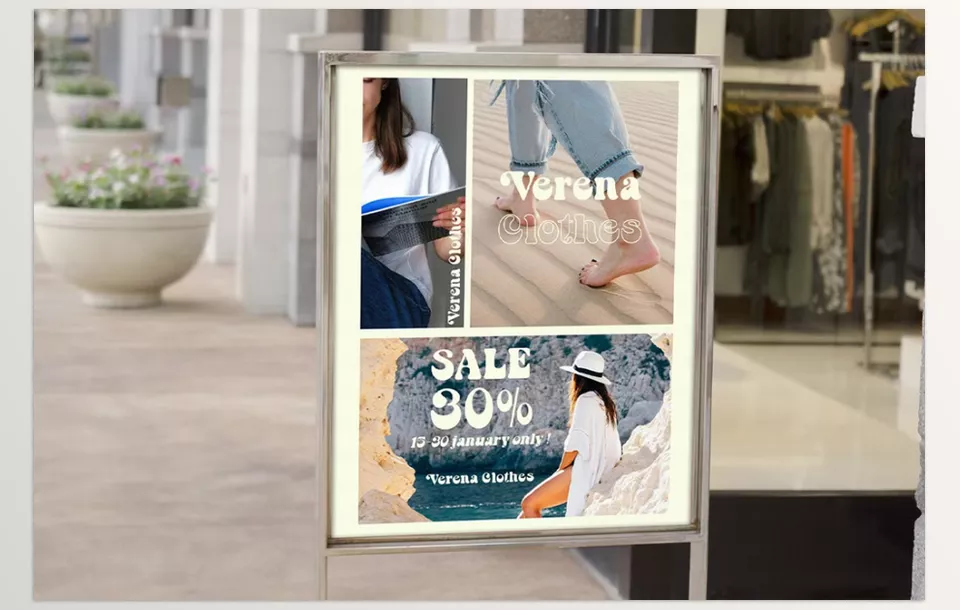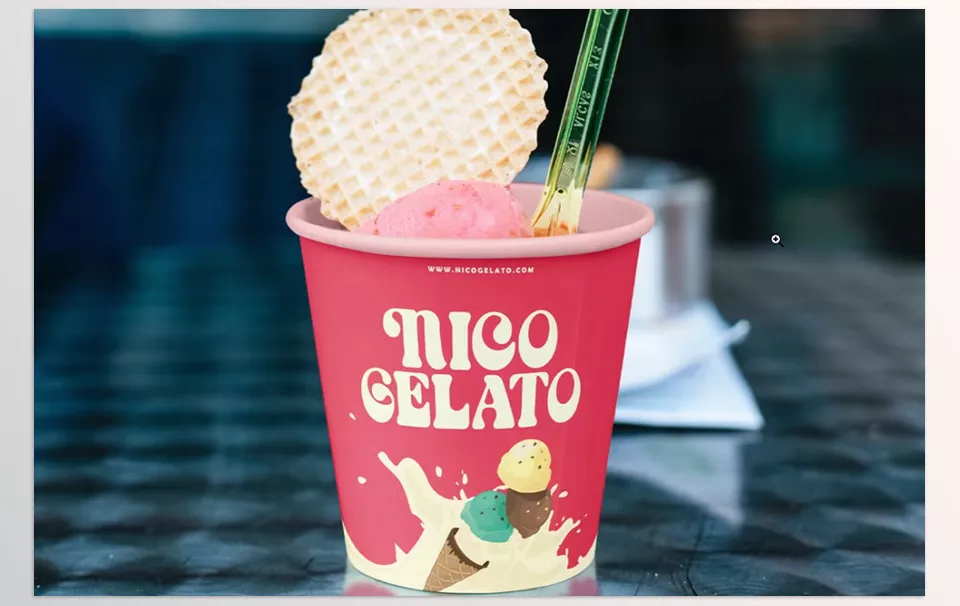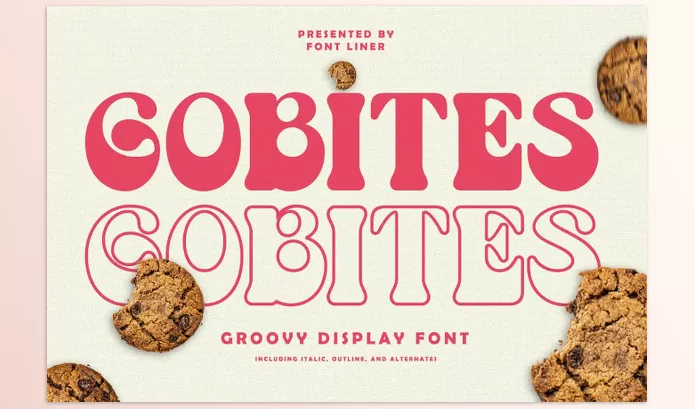
Gobites Groovy Retro Font adds a touch of nostalgia to creative projects thanks to its retro-inspired look. This design font will accentuate your creative projects with a unique touch. It is perfect for logos, packaging, apparel marketing, and myriad other graphic design projects and will add a retro flair to your designs.
Font Liner – Gobites Groovy Retro Font Features
• Outline Version: All purposes have an outline option.
• Italic Style: Supporting italic versions of semi-dynamic designs.
• Creative Use: Stylistic Alternatives help to enhance creativity by providing alter characters.
Preview Gobites Groovy Retro Font
Image 1: Capture the essence of the past with a modern twist.
Gobites Groovy Retro Font - Capture the essence of the past with a modern twist.
Image 2: Perfect for making your designs pop with a vintage feel.
Gobites Groovy Retro Font - Perfect for making your designs pop with a vintage feel.